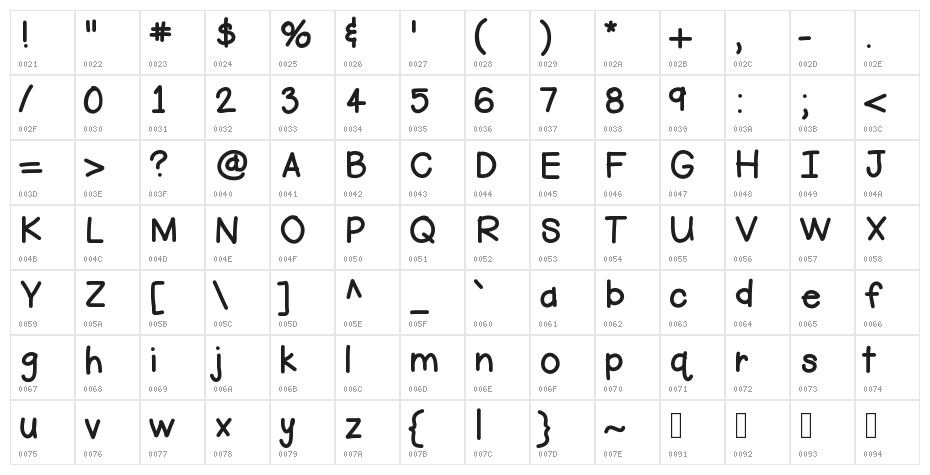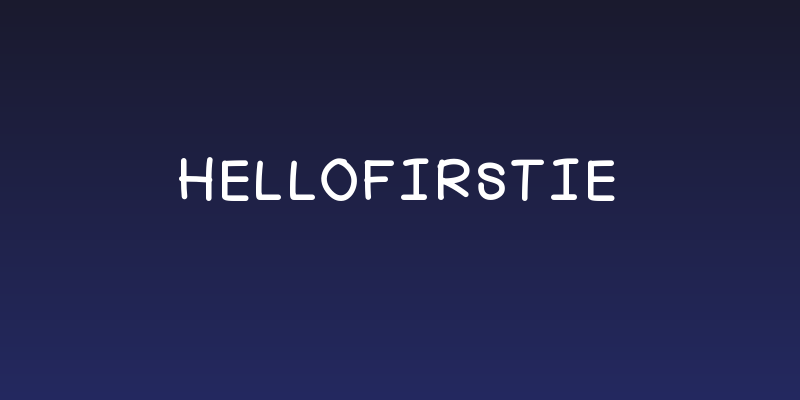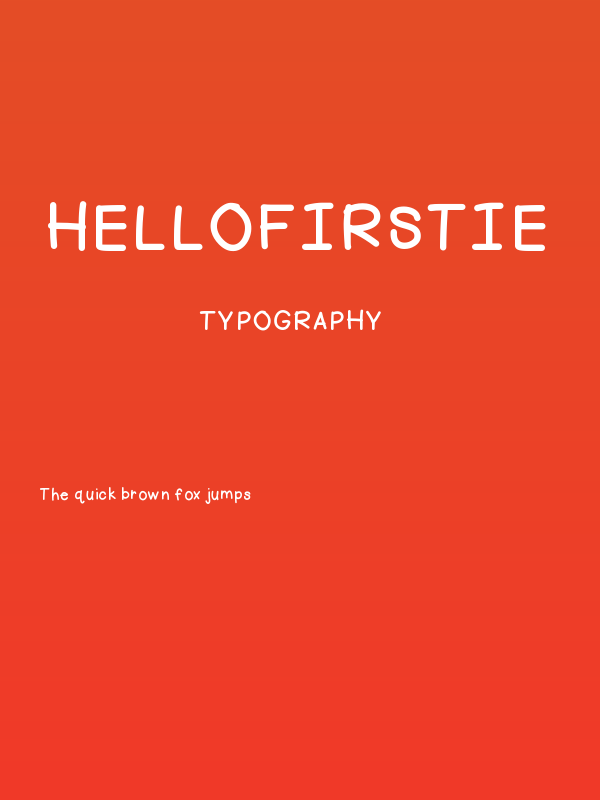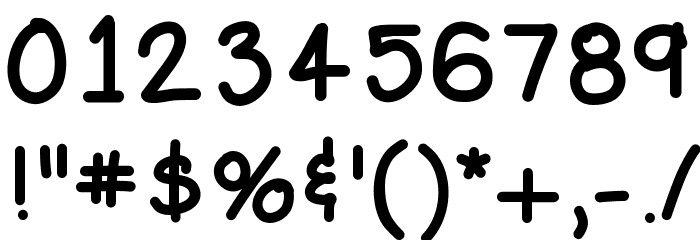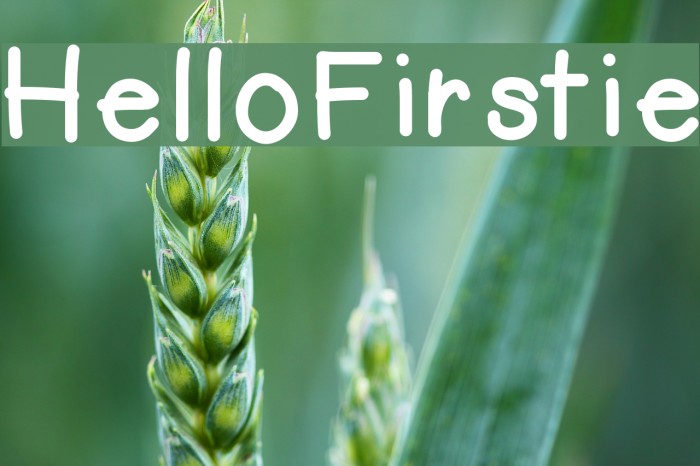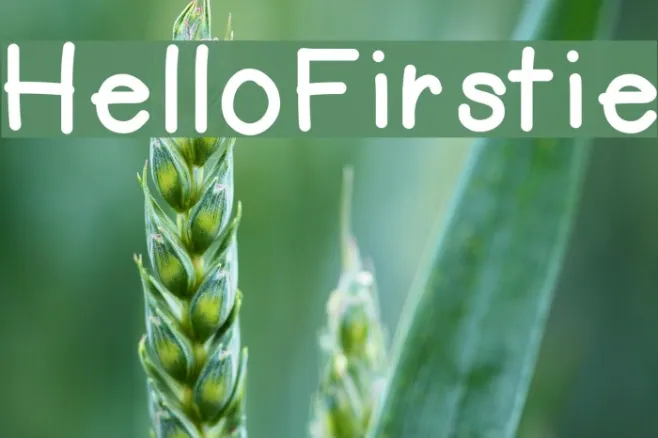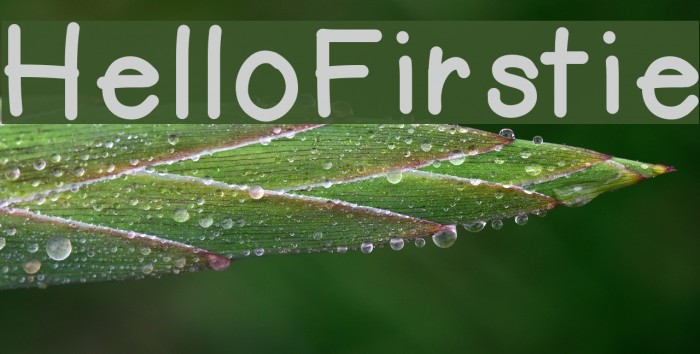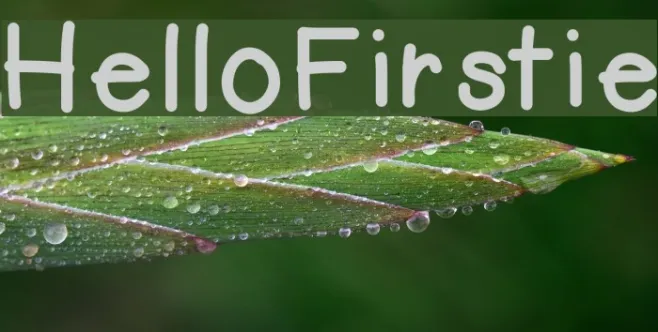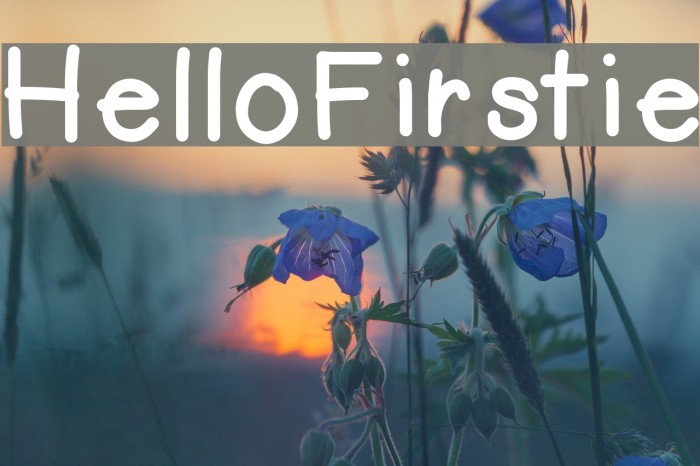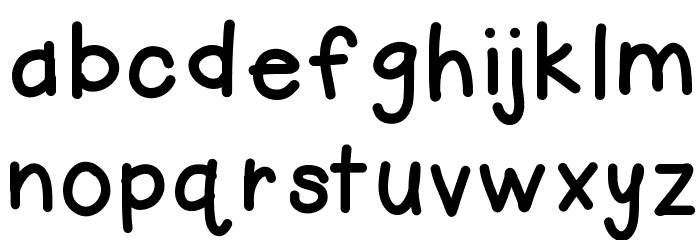
HelloFirstie Font
HelloFirstie Description
This playful and friendly font features rounded, hand-drawn characters that convey a sense of warmth and approachability. The letters are slightly irregular, adding to the casual and informal feel. The strokes are consistent in width, providing a uniform appearance across all characters. This font includes a full set of uppercase and lowercase letters, numerals, and a variety of punctuation marks and special characters. Its whimsical style makes it suitable for projects that aim to be inviting and engaging.
| Proposed Projects | Ideal for children's books, greeting cards, playful branding, and educational materials. |